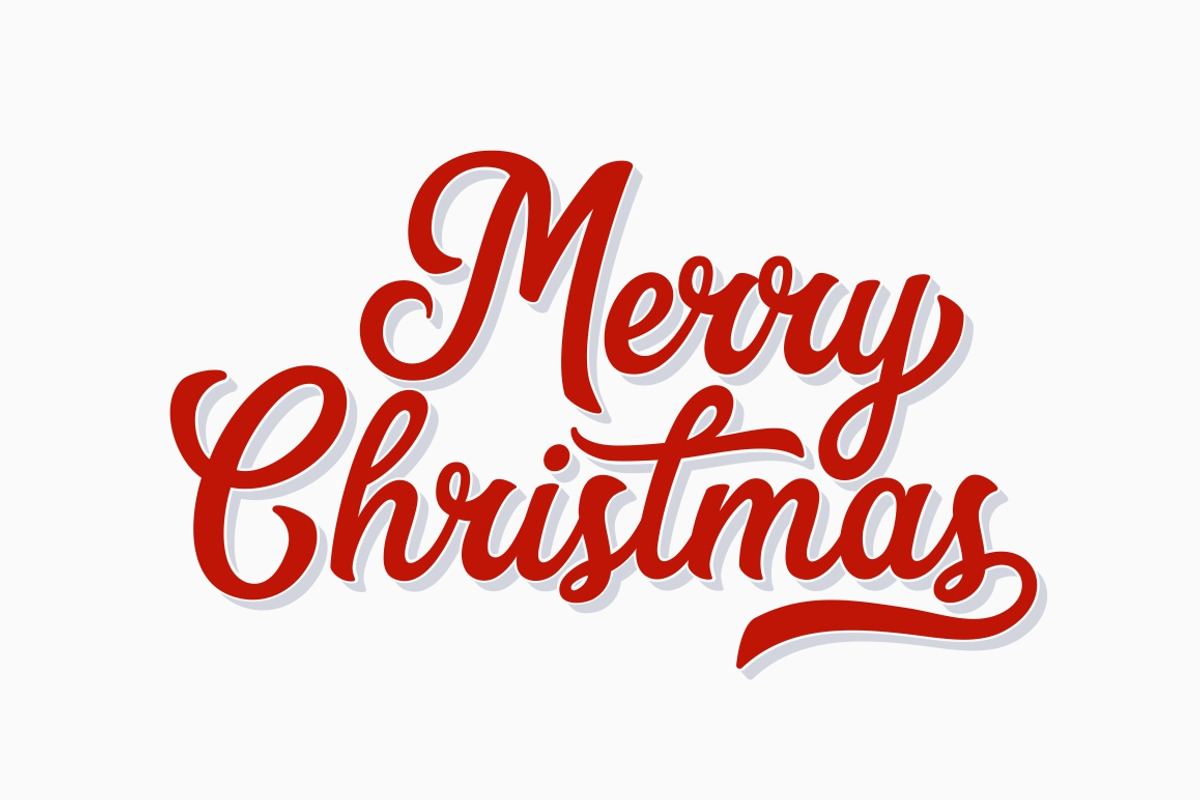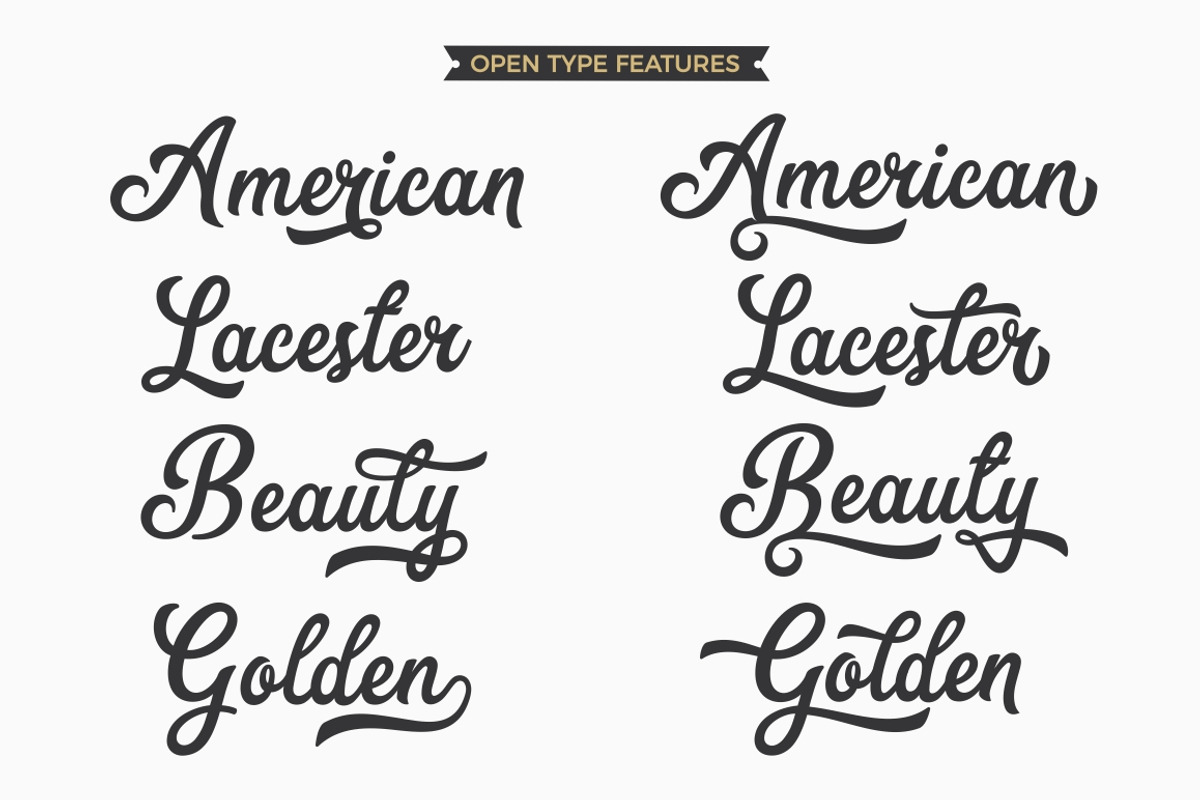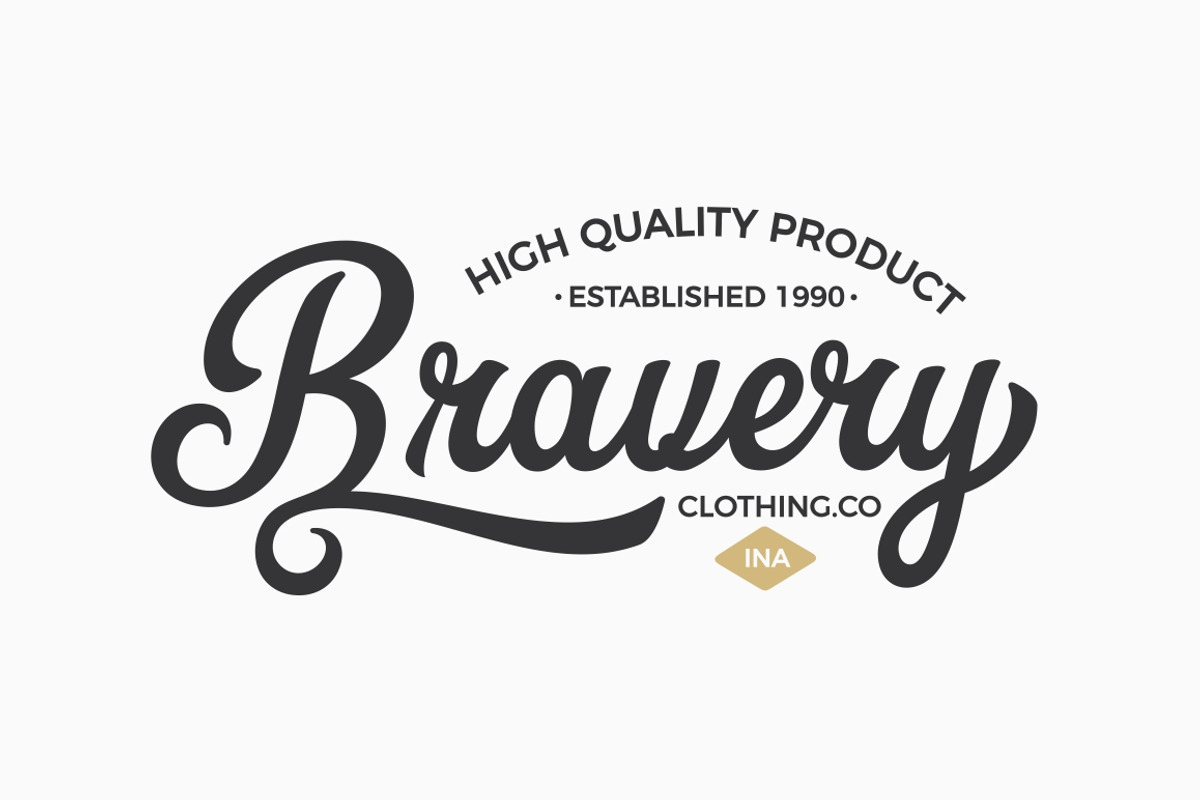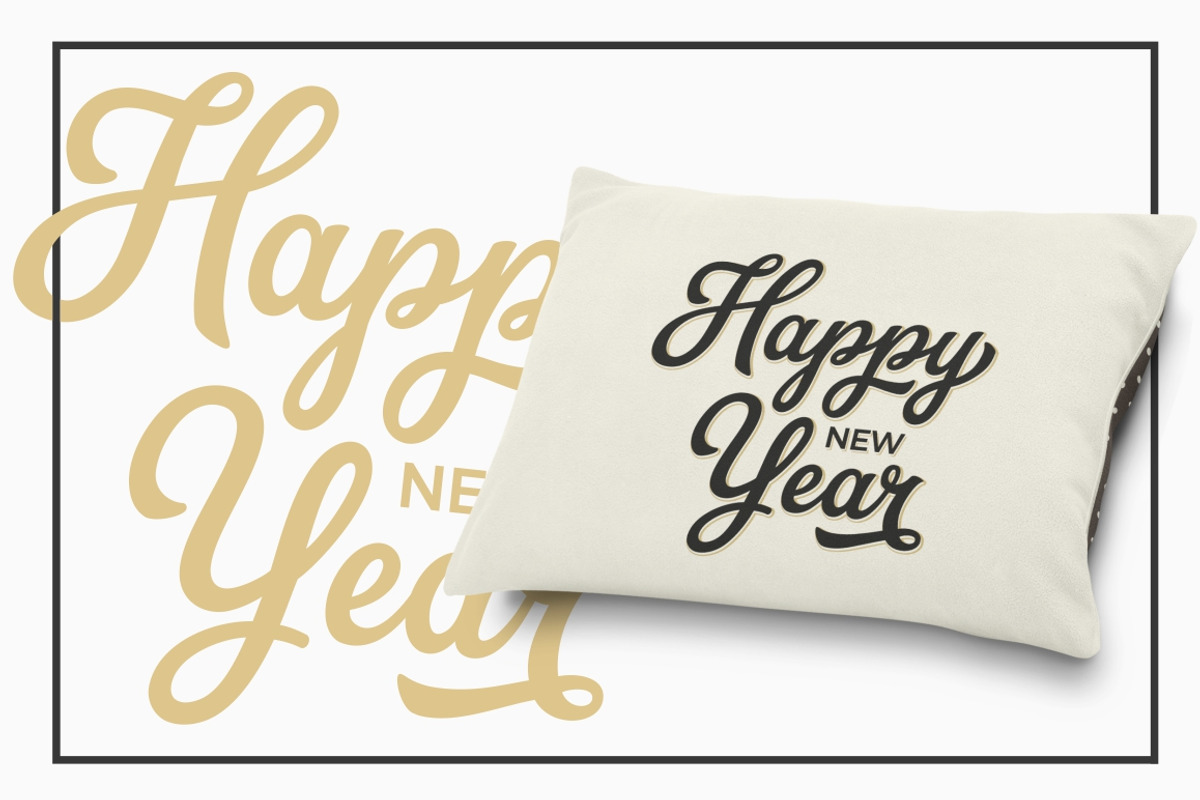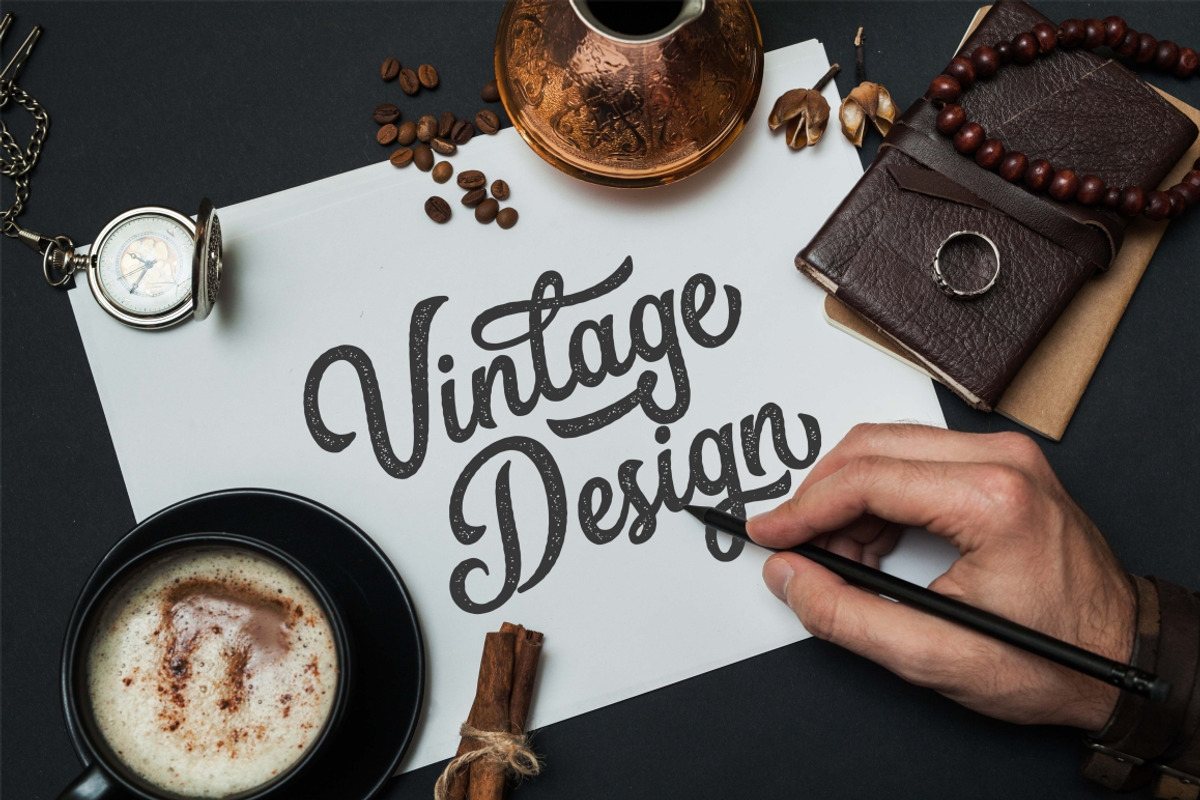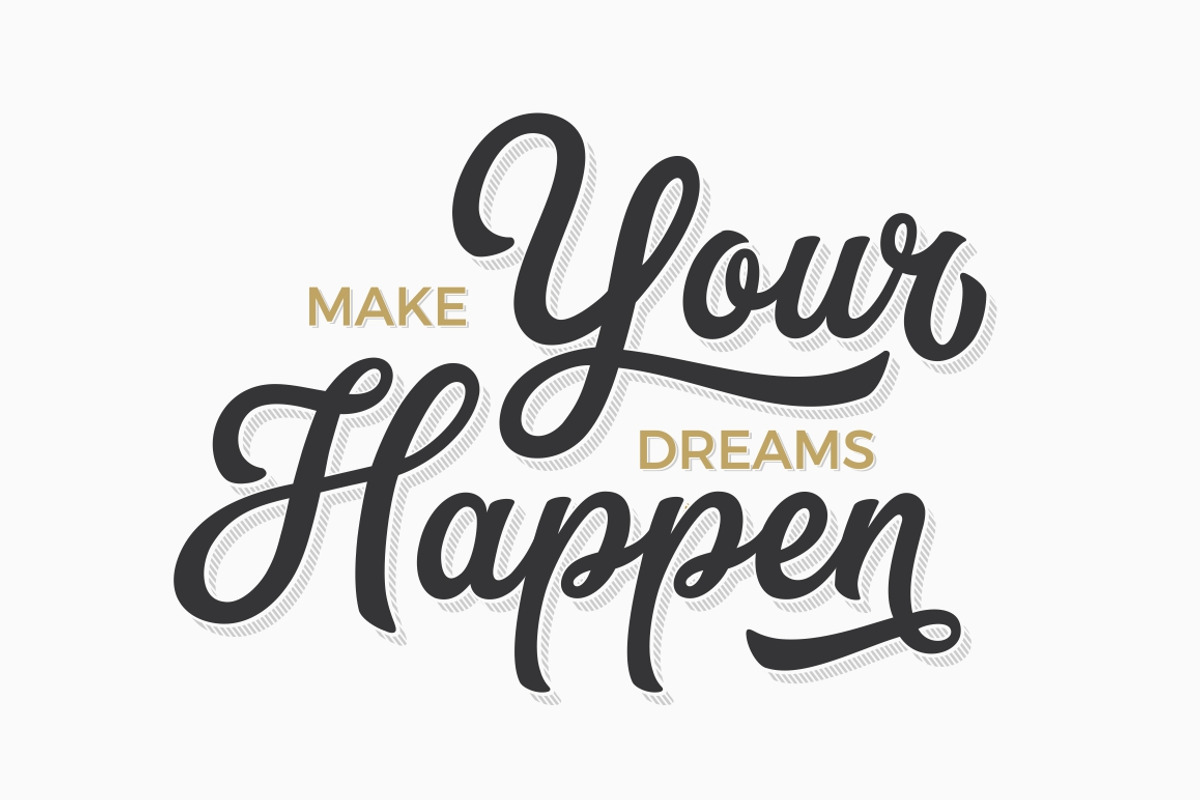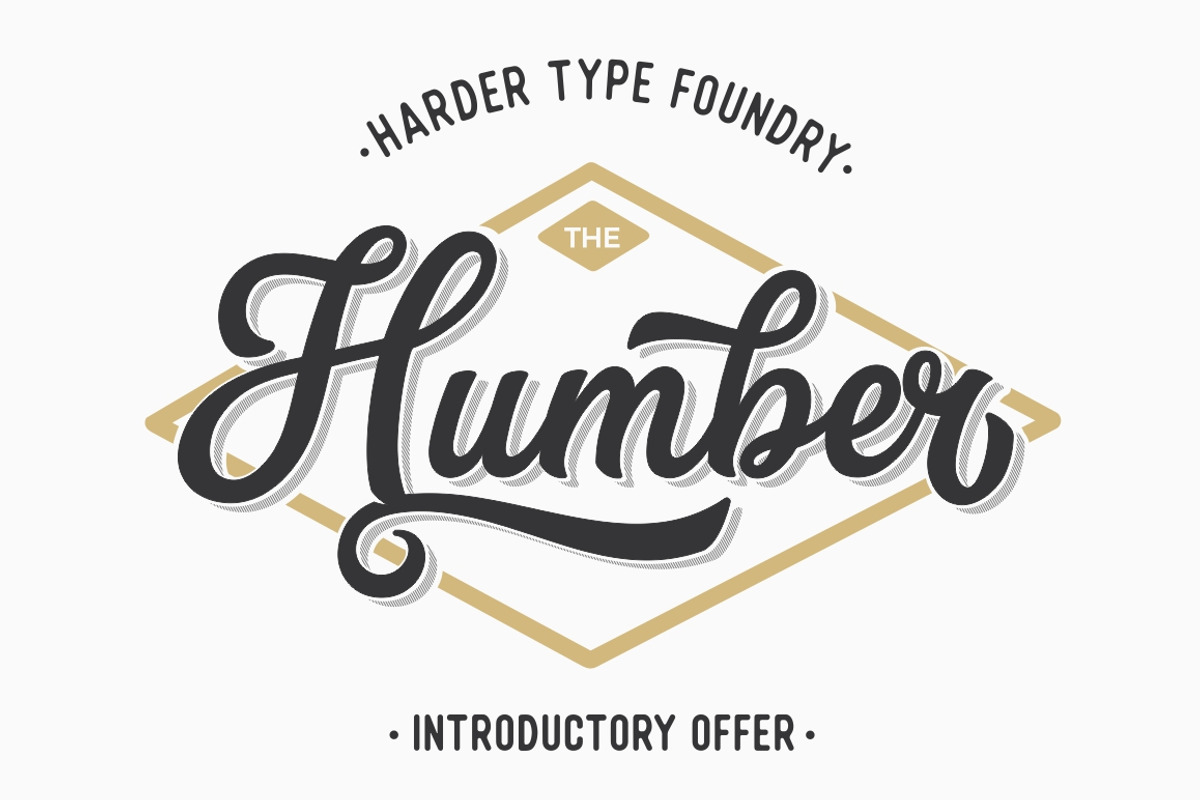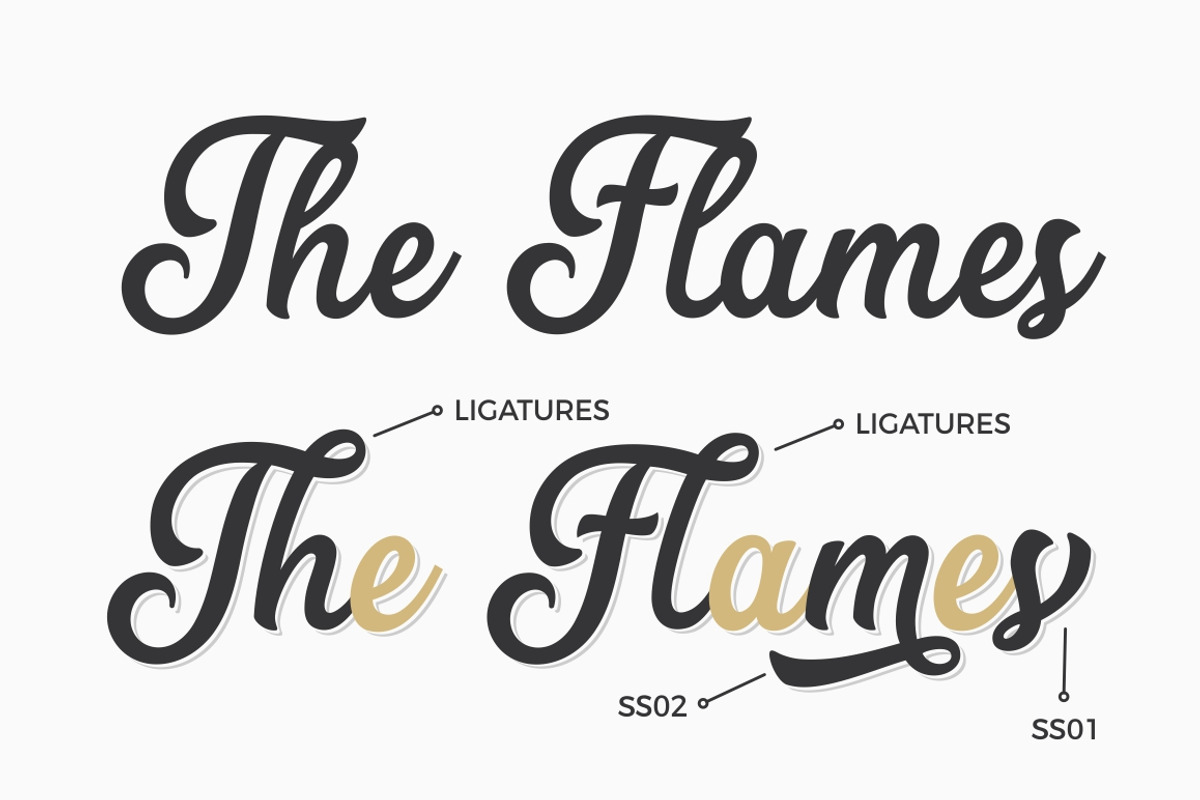
The Humber Font
The Humber Font by HRDR is a font selected for branding, posters, packaging, typography.
- the Humber Font equipped with : Uppercase,lowercase,numeral,punctuation & Symbol Stylistic alternates Stylistic Set01 - Stylistic Set07 Swas
Why The Humber Font is worth a look
The Humber Font by HRDR fits naturally into Branding, posters, packaging, typography.